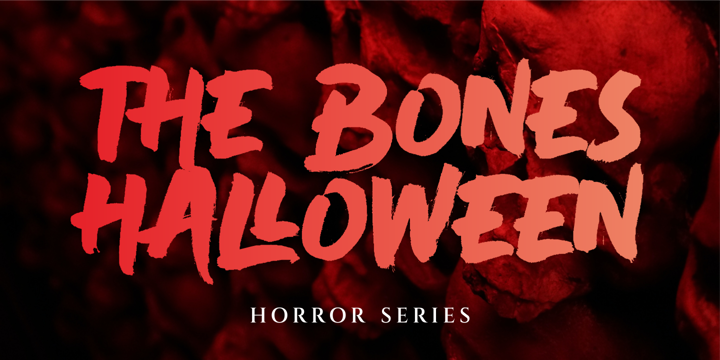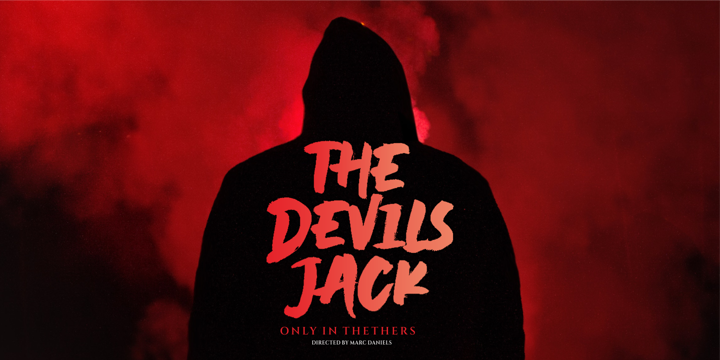
Black Rider Font
Black Rider FontBlack Rider is a supercharged street brush font full of energy. With extra attention to quick strokes and sharp detail, Black Rider is guaranteed to deliver a very loud & fast message; ideal for logos, clothing, quotes, product packaging, movie titles, book covers or anything else that needs a typography turbo-boost.